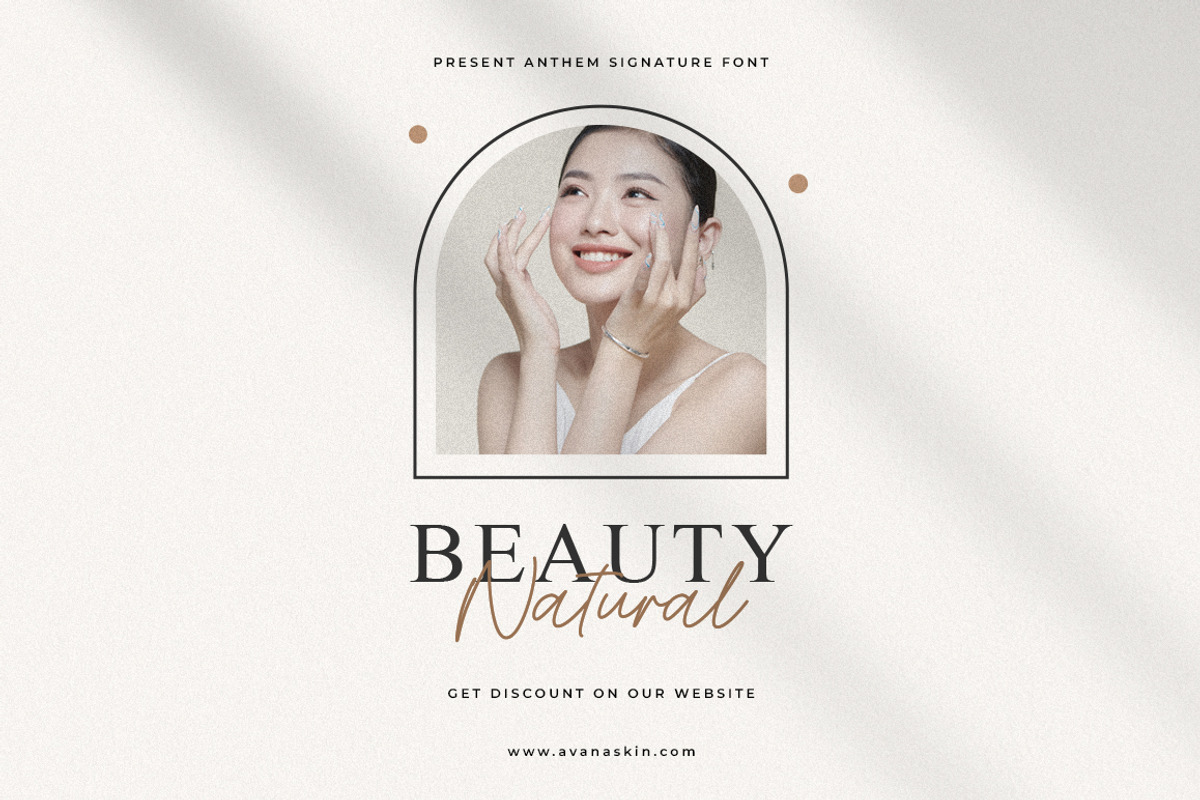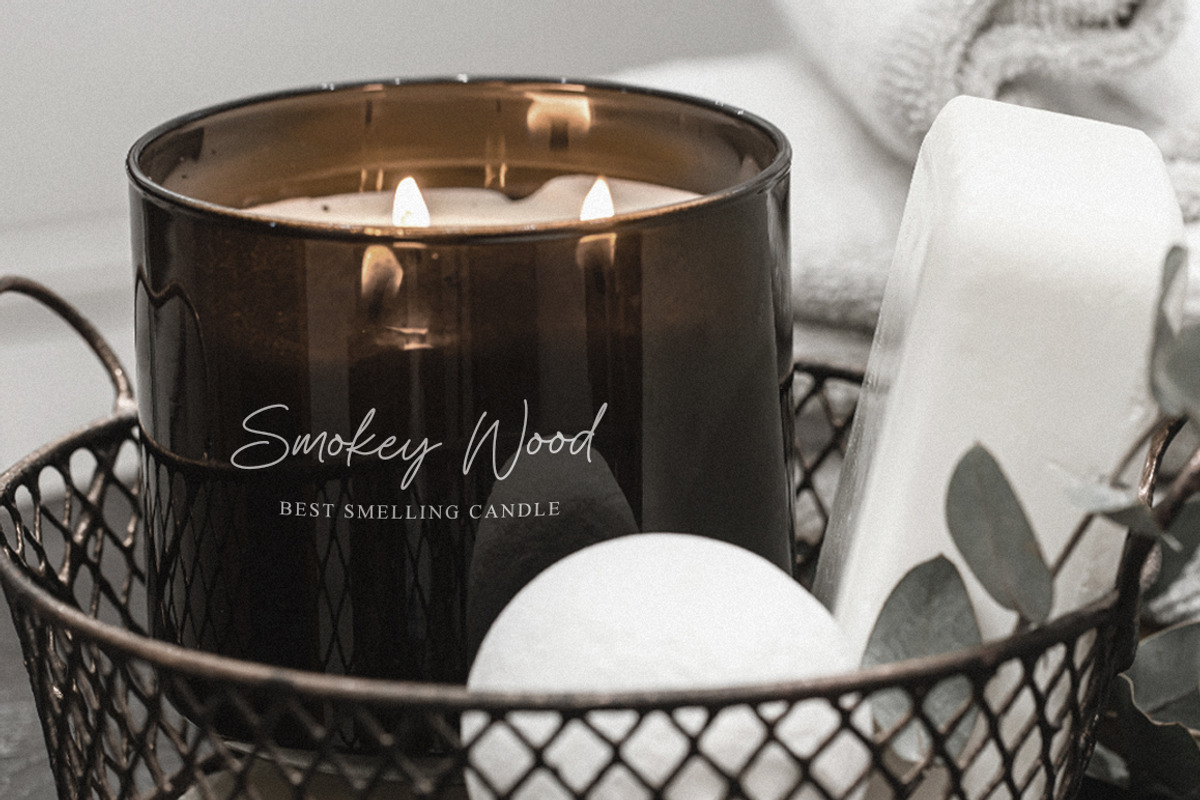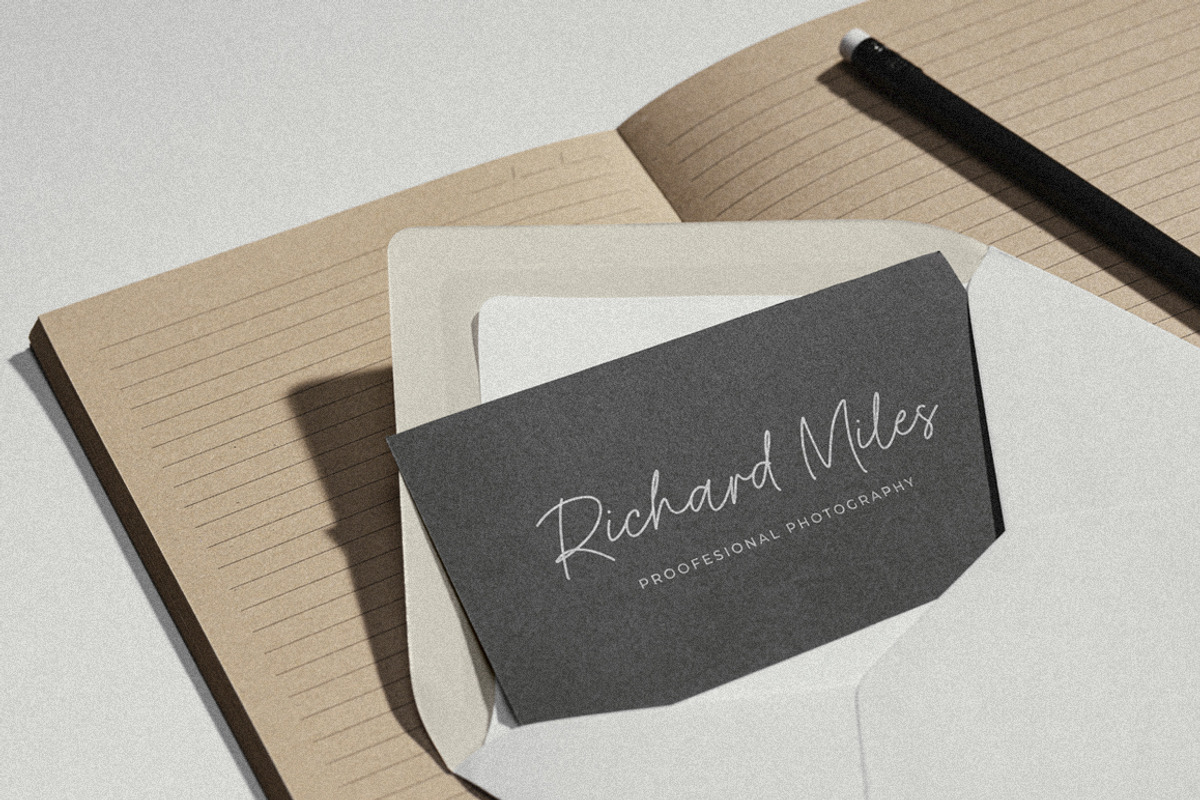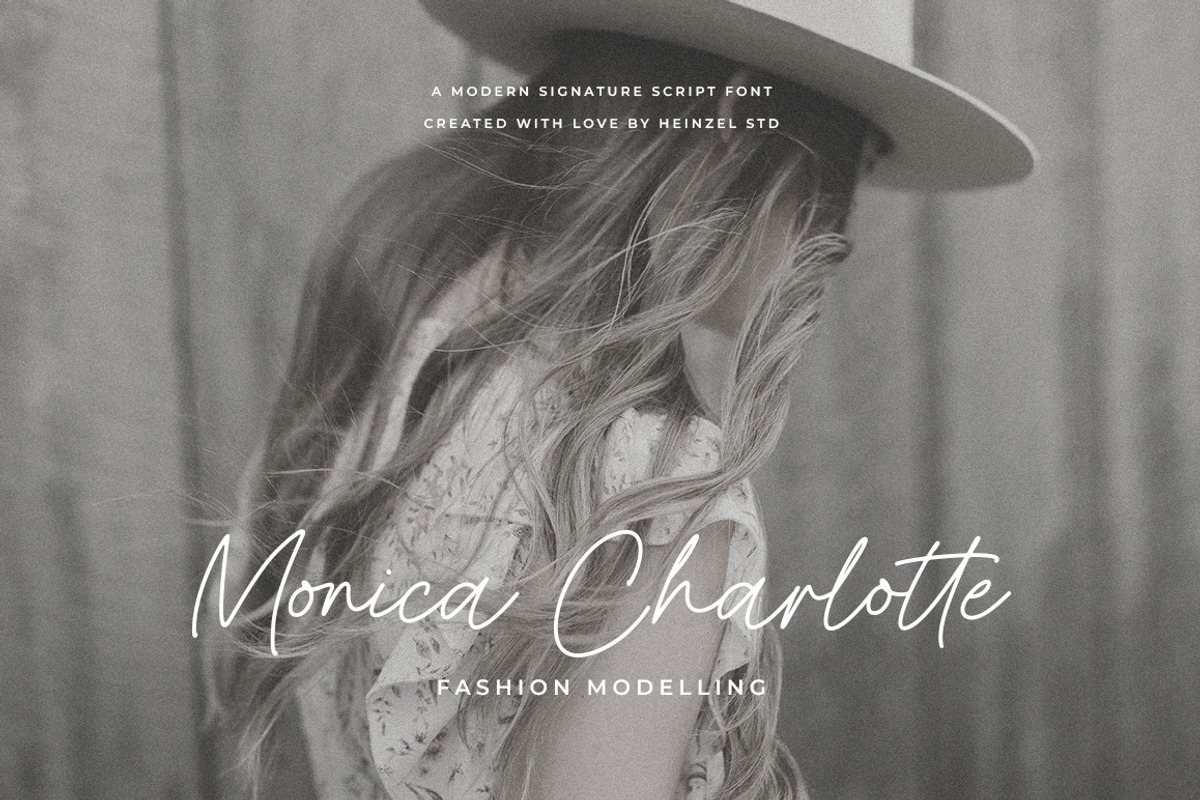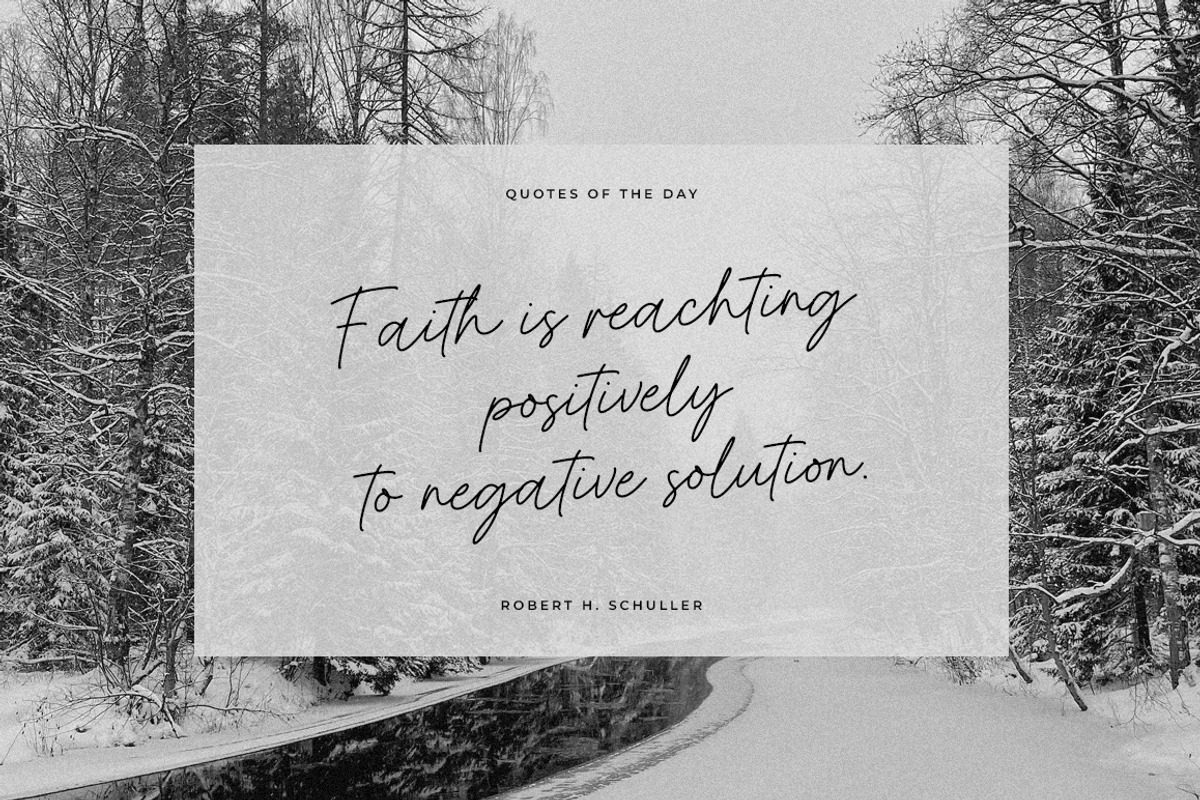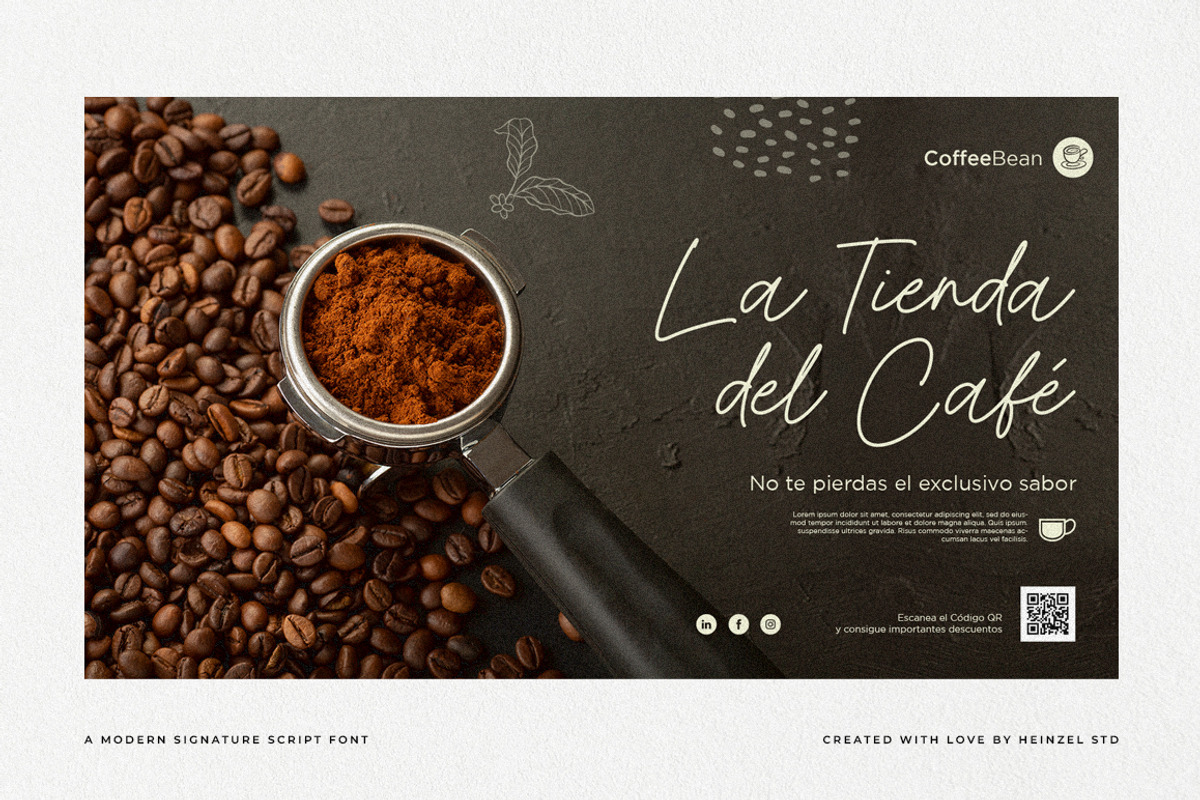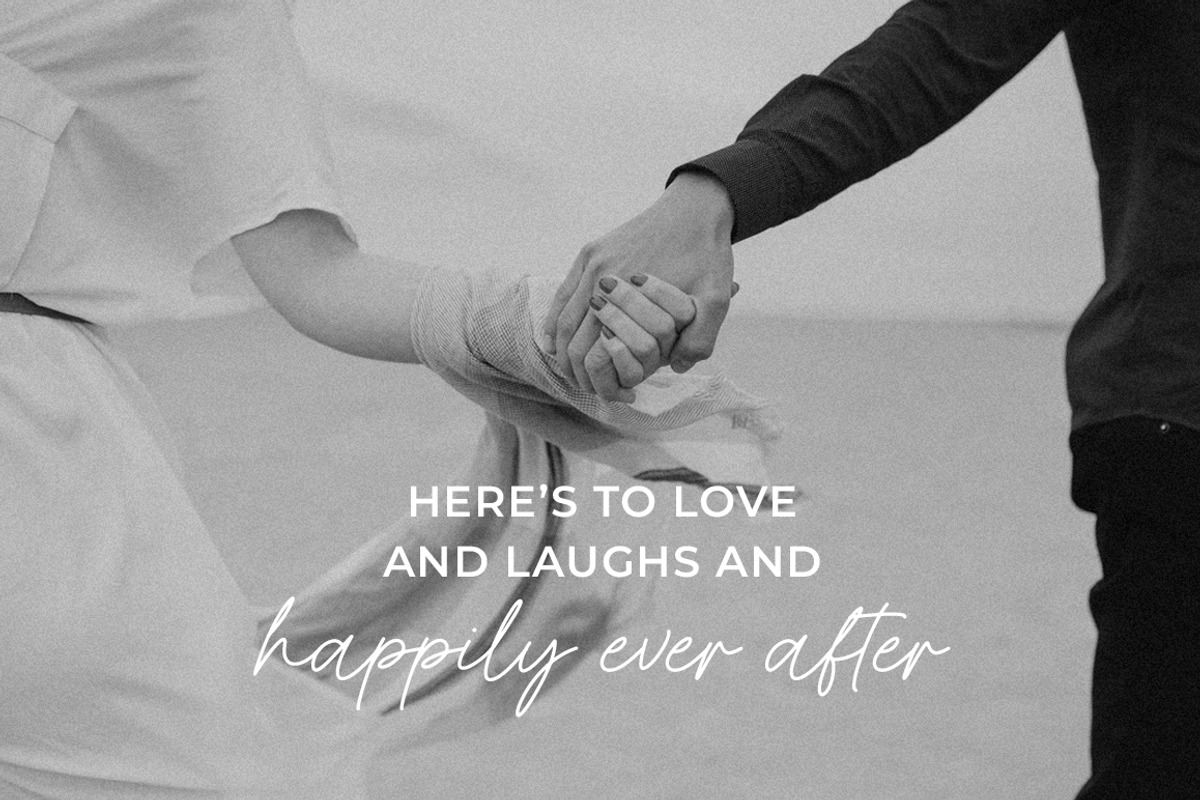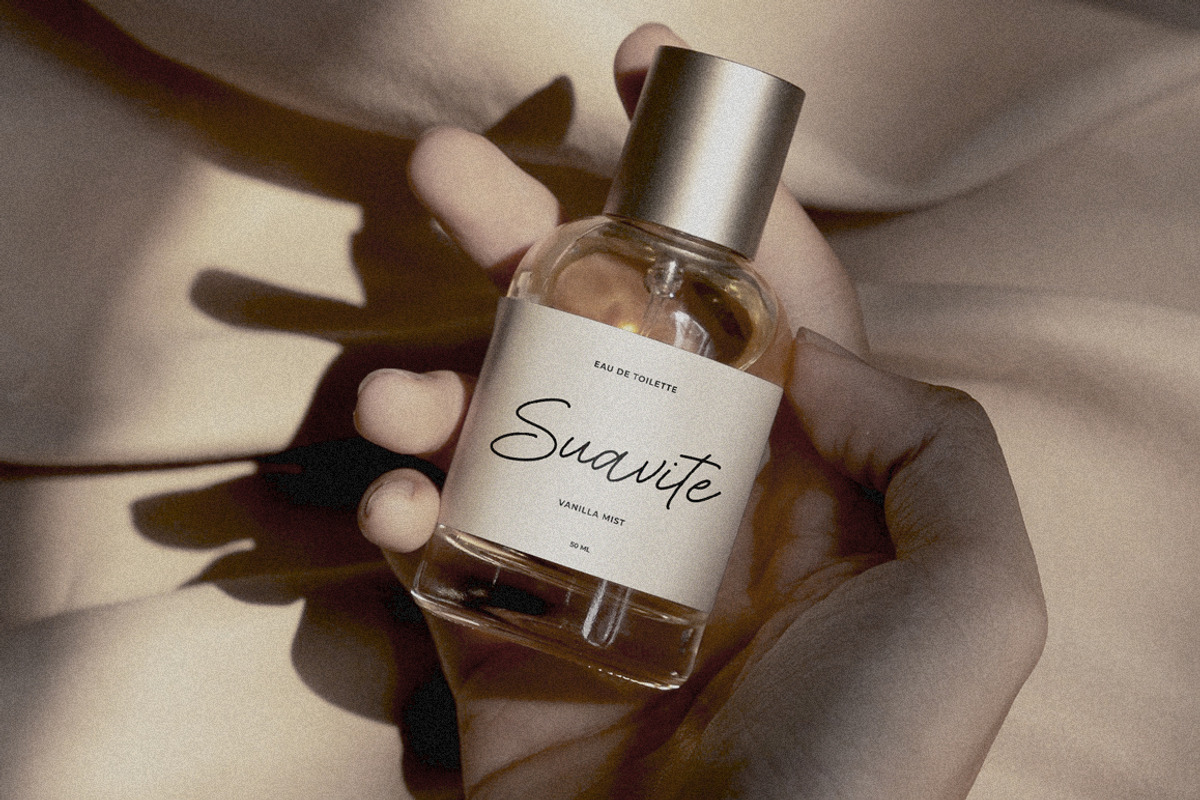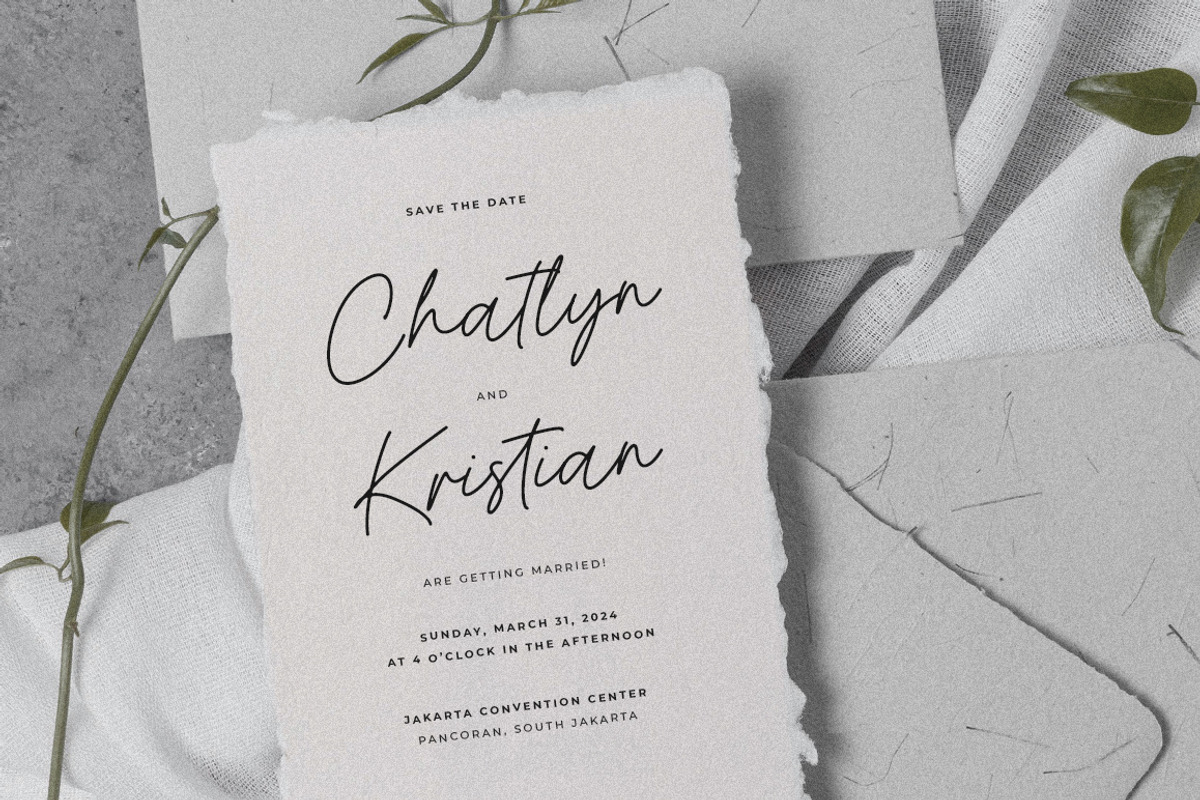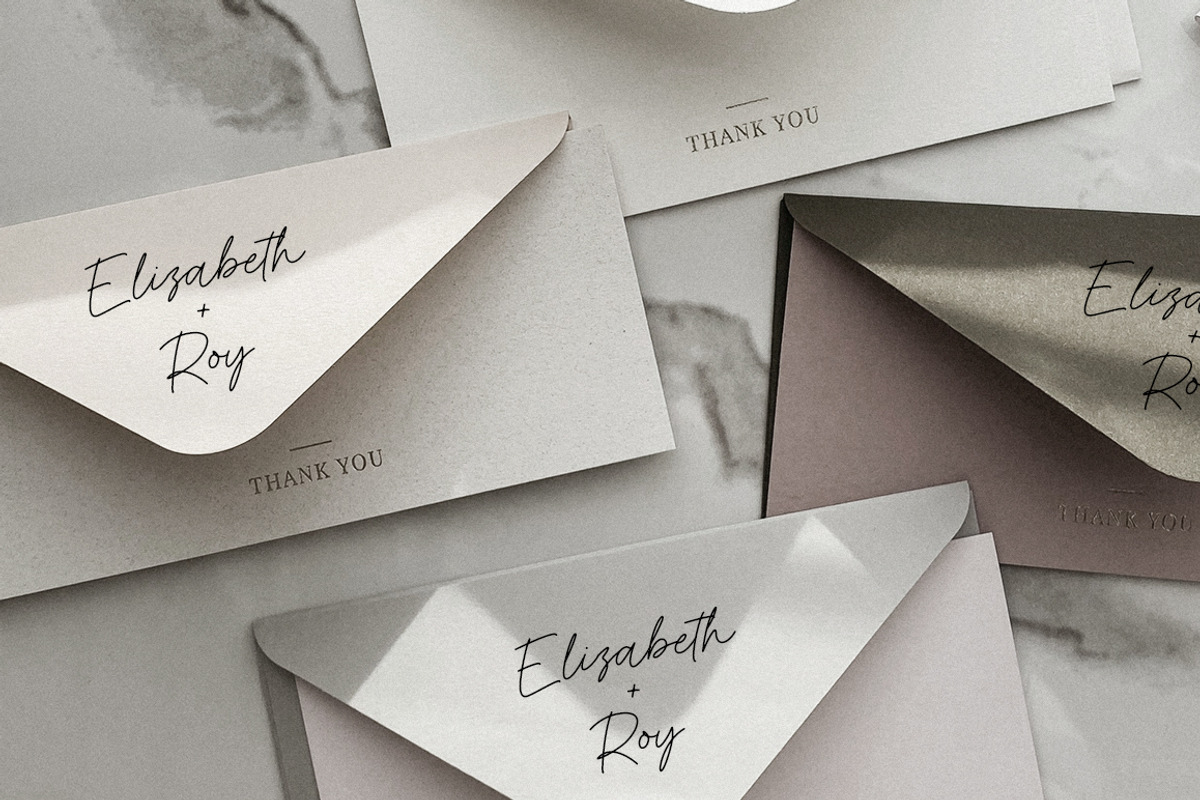
Present Anthem Modern Signature Font
Present Anthem is a modern signature script font designed to bring a natural, elegant, and expressive handwritten feel to your creative projects. With its flowing strokes, stylish connections, and authentic signature character, Present Anthem creates a sophisticated yet personal impression.
Perfect for logos, branding, fashion designs, wedding invitations, photography, social media graphics, stationery, packaging, greeting cards, and luxury branding, this script font adds a refined handwritten touch wherever it is used.
Present Anthem is especially suited for designers looking to create a modern signature logo, elegant brand identity, stylish wedding stationery, or premium editorial artwork. Its graceful letterforms work beautifully in both minimal compositions and expressive display designs.
Present Anthem Features:
Regular Version
Numerical and Punctuation
Multilingual Language